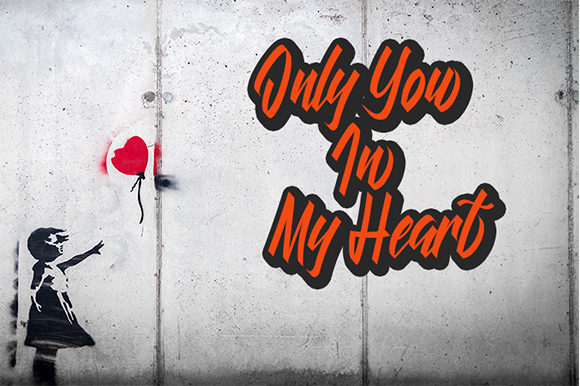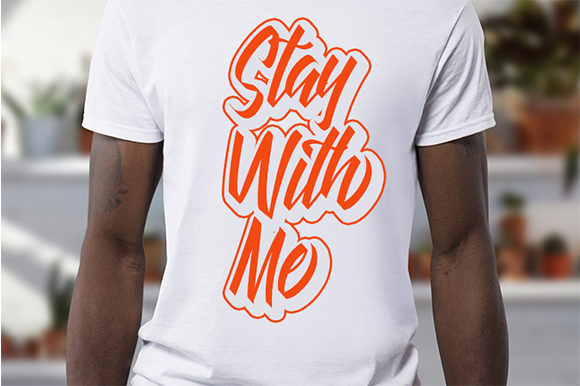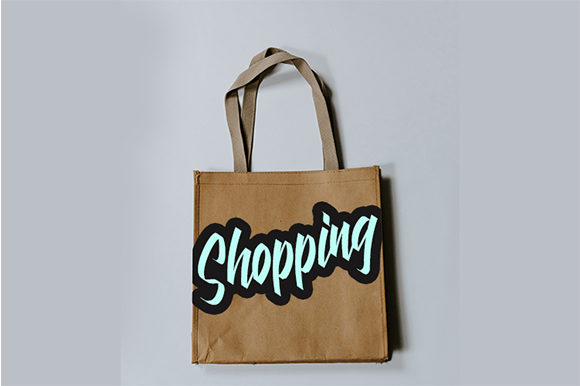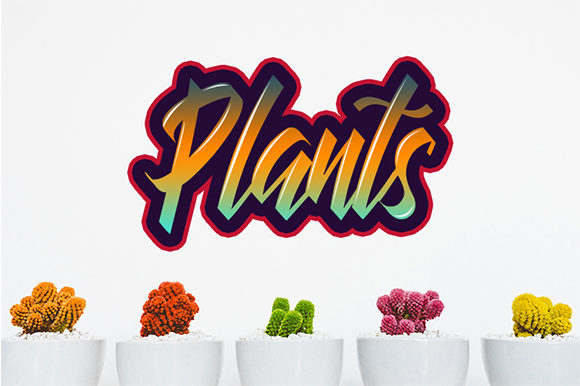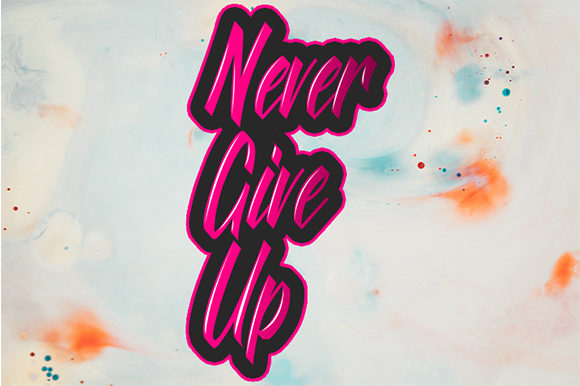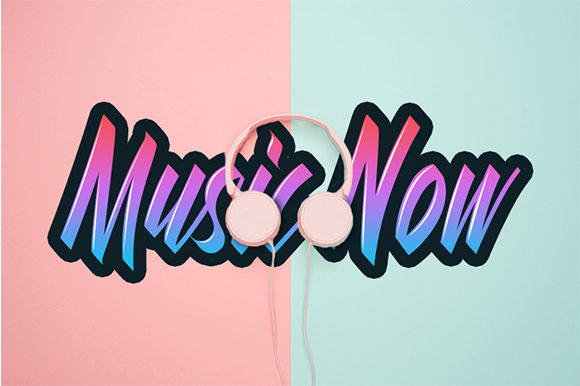
Astone Blood Font: The Ultimate Urban Handwritten Font for Designers and Crafters
Are you looking for a font that can add a touch of urban coolness to your design projects? Look no further than Astone Blood, a sweet and cool handwritten font that’s perfect for designers and crafters alike. In this article, we’ll dive into the world of Astone Blood, exploring its features, benefits, and uses, and why it’s a must-have for anyone looking to elevate their design game.
What is Astone Blood Font?
Astone Blood is a modern, handwritten font that’s designed to bring an urban feel to any design project. With its unique blend of sweetness and coolness, this font is perfect for designers who want to add a touch of personality to their work. Whether you’re creating a logo, branding materials, or social media graphics, Astone Blood is the perfect choice.
Key Features of Astone Blood Font
- Handwritten style: Astone Blood features a beautiful, handwritten style that’s perfect for adding a personal touch to your designs.
- Urban feel: With its modern and edgy vibe, Astone Blood is perfect for designs that require an urban feel.
- Versatile: This font is versatile and can be used for a wide range of design projects, from logos and branding materials to social media graphics and more.
- Easy to read: Despite its unique style, Astone Blood is easy to read, making it perfect for designs that require a clear and concise message.
Benefits of Using Astone Blood Font
So why should you choose Astone Blood for your design projects? Here are just a few benefits of using this amazing font:
- Adds personality to your designs: With Astone Blood, you can add a touch of personality to your designs, making them stand out from the crowd.
- Perfect for urban-themed designs: If you’re creating designs that require an urban feel, Astone Blood is the perfect choice.
Uses of Astone Blood Font
Astone Blood is a versatile font that can be used for a wide range of design projects, including:
- Logo design: Create unique and memorable logos with Astone Blood.
- Branding materials: Use Astone Blood to create branding materials, such as business cards and brochures.
- Social media graphics: Add a touch of urban coolness to your social media graphics with Astone Blood.
- Posters and flyers: Create eye-catching posters and flyers with Astone Blood.
Tips for Using Astone Blood Font
Here are a few tips for using Astone Blood to get the most out of this amazing font:
- Experiment with different colors: Astone Blood looks great in a range of colors, so don’t be afraid to experiment and find the perfect color for your design.
- Use it with contrasting fonts: Pair Astone Blood with contrasting fonts to create visual interest and add depth to your designs.
- Keep it simple: Don’t overcomplicate your designs – keep it simple and let Astone Blood do the talking.
Astone Blood is a sweet and cool handwritten font that’s perfect for designers and crafters who want to add an urban feel to their design projects. With its unique blend of style and versatility, this font is a must-have for anyone looking to elevate their design game. Whether you’re creating logos, branding materials, or social media graphics, Astone Blood is the perfect choice. So why wait? Download Astone Blood today and start creating amazing designs!